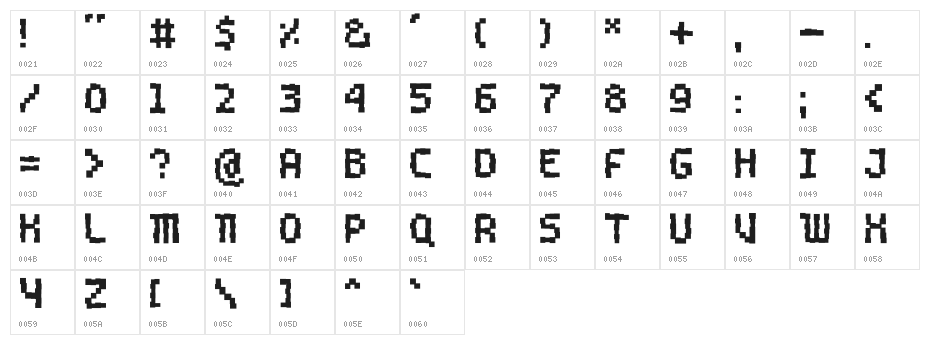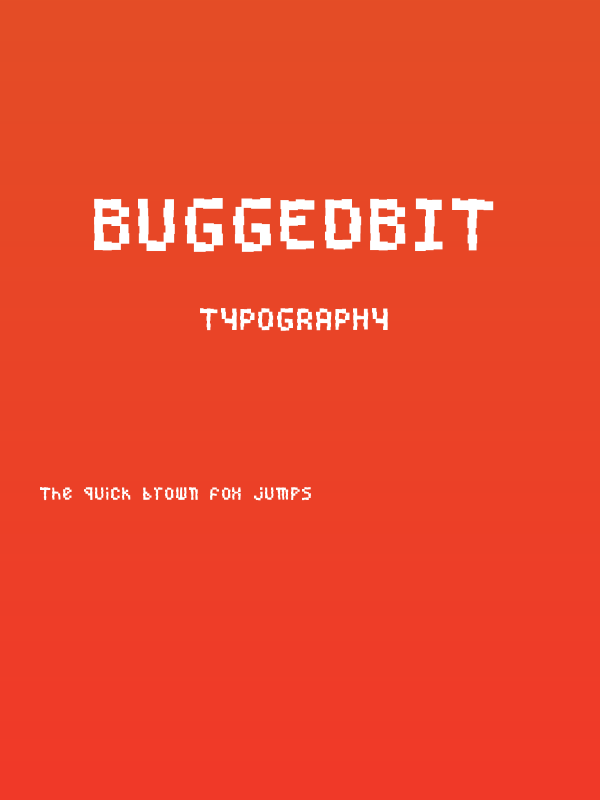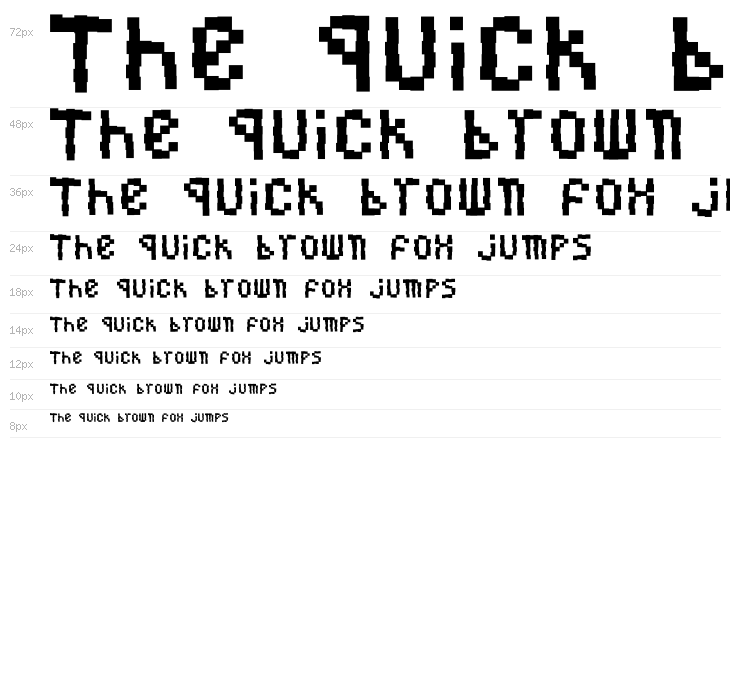
BuggedBit Font
BuggedBit Description
This font features a pixelated, blocky design reminiscent of early digital or video game typography. Each character is composed of distinct, square-like shapes that give it a retro, digital aesthetic. The uniformity in the height and width of the characters contributes to a monospaced appearance, although slight variations exist to maintain legibility. The font's bold and chunky style makes it stand out, ideal for capturing attention. It includes a full set of uppercase and lowercase letters, numbers, and a variety of special characters, all maintaining the same pixelated theme. The overall look is both nostalgic and modern, suitable for projects that aim to evoke a sense of digital nostalgia or a tech-inspired vibe.
| Overall Style | Retro, Digital |
| Use Case | Headlines, Logos, Digital Art |
| Proposed Projects | Ideal for video game design, tech-themed posters, digital art projects, and retro-style branding. |